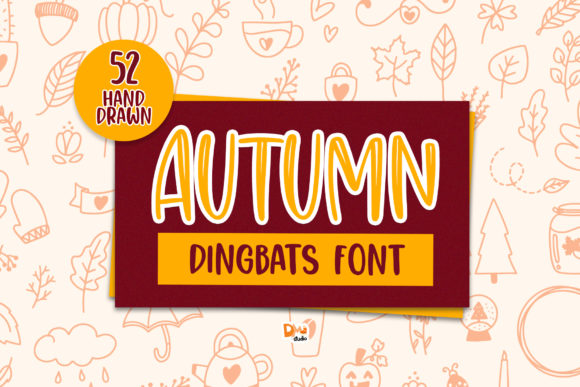
The Magic of Autumn Font: Elevate Your Fall Designs
I’ll never forget the design project that made me fall in love with the Autumn Font. I was working on a cozy fall-themed invitation for a friend’s harvest party, and I was struggling to find the perfect font to capture the warmth and playfulness of the season. That’s when I stumbled upon Autumn Font, and it instantly became the missing piece to my design puzzle. In this article, I’ll share my experience with this amazing dingbats font, and show you how to make the most of it in your own designs.
An Honest Review of Autumn Font
- ✨ Unique and playful glyphs that perfectly evoke the feeling of fall
- ✅ Incredibly versatile and easy to use in various design projects
- 💡 Extensive OpenType features and stylistic alternates to add an extra creative touch
- 🎉 Perfect for a wide range of design applications, from invitations and posters to social media graphics and crafts
While Autumn Font is an amazing addition to any design project, there are a few things to keep in mind:
- 🤔 Some glyphs may require manual kerning to achieve optimal results
- ⚠️ Limited language support, mainly focused on English and basic punctuation
A Practical Guide to Using Autumn Font
- Experiment with OpenType features and stylistic alternates to add a creative touch to your design
The Story Behind Autumn Font
Autumn Font was designed by a talented type designer who wanted to capture the essence of the fall season in a unique and playful way. Inspired by the changing leaves, cozy sweaters, and warm apple cider, this font is the perfect addition to any fall design project. Whether you’re a designer, crafter, or creative hobbyist, Autumn Font is sure to bring a touch of magic to your work.
Q: What type of projects can I use Autumn Font for?
A: Autumn Font is incredibly versatile and can be used for a wide range of design projects, from invitations and posters to social media graphics and crafts.
Q: Is Autumn Font easy to use?
A: Yes, Autumn Font is designed to be user-friendly and easy to use, even for those without extensive design experience.